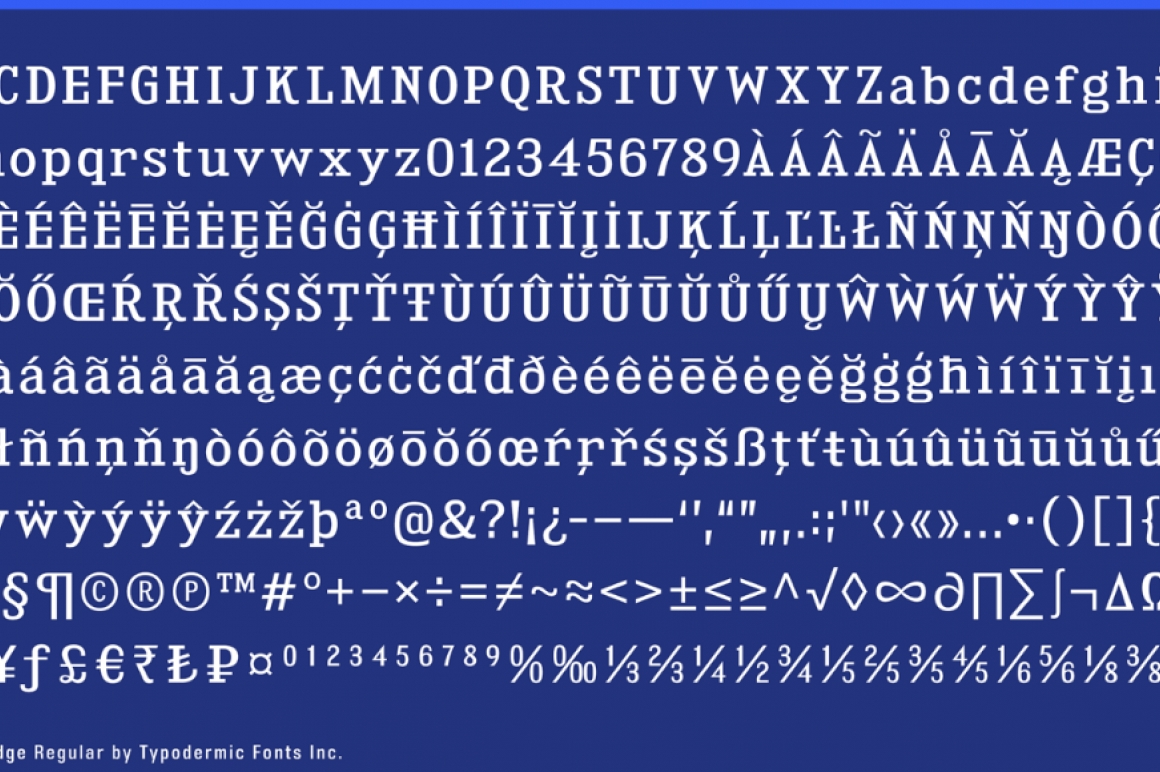
Kingsbridge
Kingsbridge is a slab-serif typeface family with sharp points on the A, M, N, V and W. There are 56 free styles in total but only 16 included here.